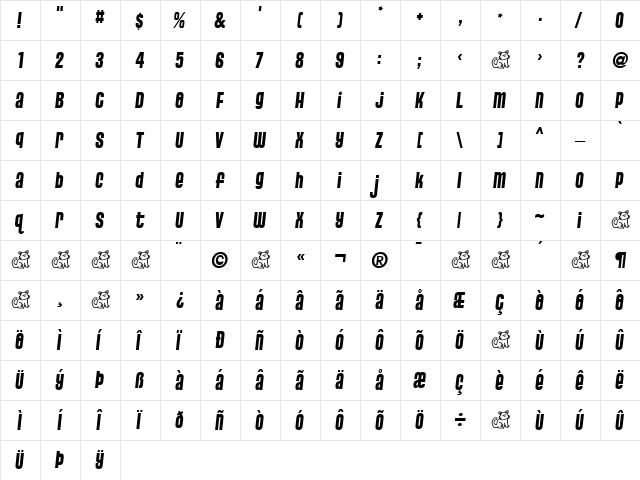
Pussycat Sassy
Design Context for Pussycat Typeface
Pussycat takes a measured approach to typography — its balanced proportions and neutral character make it a reliable workhorse for both digital and print work.